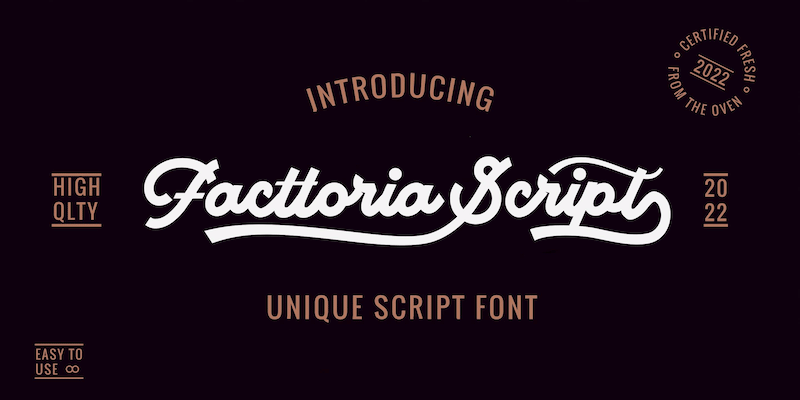
Preview and download Facttoria Script Font. Created by Måns Grebäck in Script Old School styles with Free for personal use license.
NOTE: This font is for PERSONAL USE ONLY! To purchase a commercial license, visit: http://mn.sg/facttoria-script The Facttoria Script typeface is a calligraphic lettering with a thick character and a strong personality. Use # after any word to make a tail. Example: Signature# Use _ anywhere in a word to make a swash. Example: Love_letter Use multiple underscores to make different swashes. Example: Hand_____writer For questions, please visit www.mansgreback.com/faq |